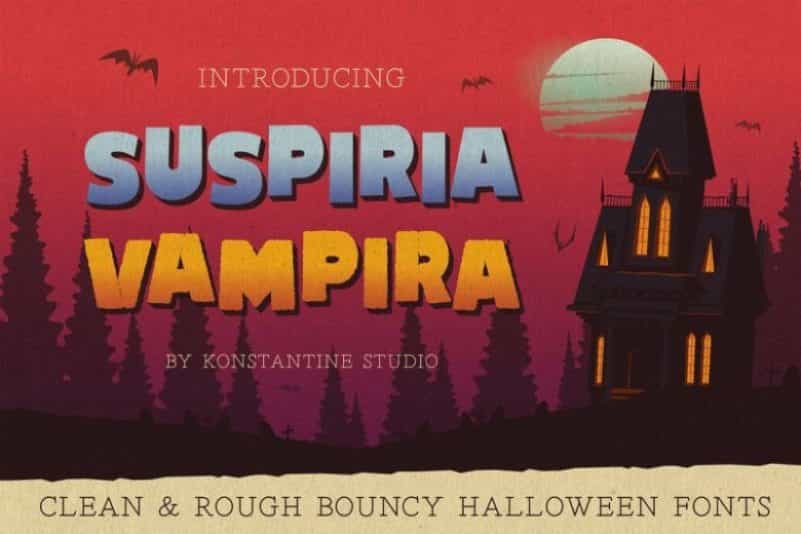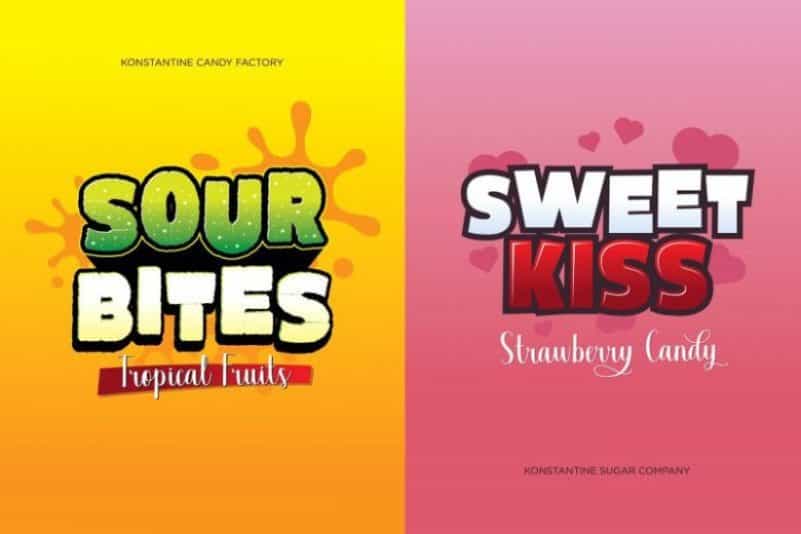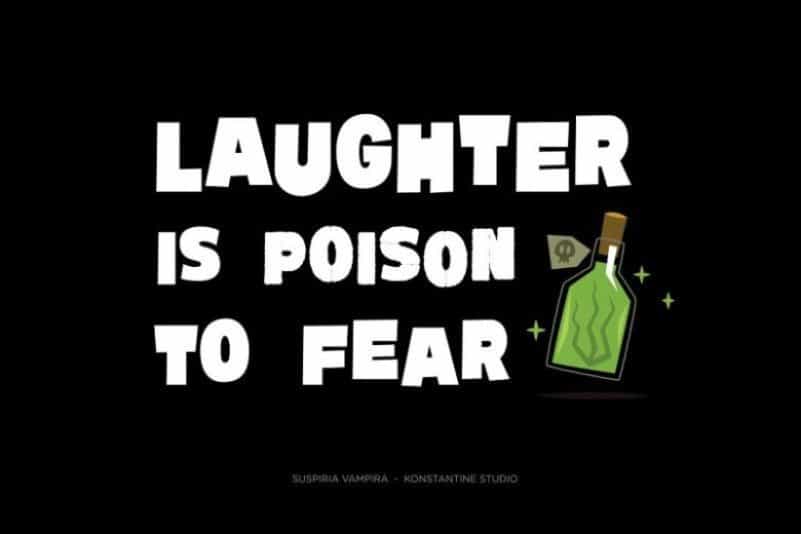
Introducing Suspiria Vampira Font. Halloween is coming. In case you are planning on following this advice and getting prepared earlier, then it is recommended that you download this font. A futuristic and playful typography with two different levels of cleanness: Clean and Rough. Quite fitting for a halloween theme, but the high versatility level can be observed in this font. They can be used in any joyful and playful branding or event theme. Still many possibilities appear!